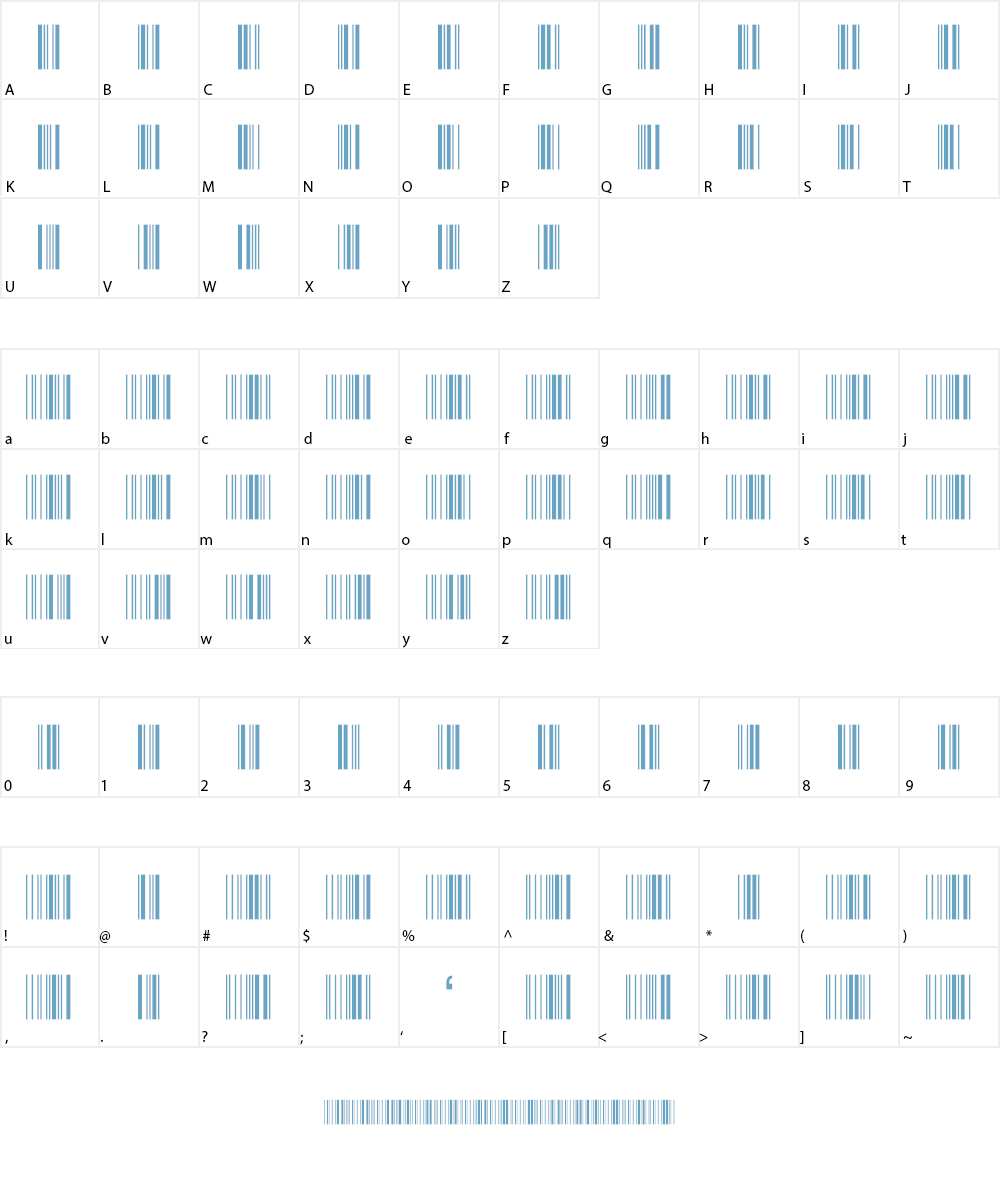
Can you believe there are people who would charge you for a barcode
font like this? It took very little time to make this so I thought
I'd donate it to the world. It is suitable for scanning even at
fairly small point sizes (with a laser printer). I have tested
printed copies of this font with a couple different scanners and it
worked perfectly.
This is 3 of 9 (sometimes called "code 39"), a widely used barcode
standard that includes capital letters, numbers, and several symbols.
This is not the barcode for UPC's (universal price codes) found on
products at the store. However, most kinds of barcode scanners will
recognize 3 of 9 just fine.
To create a valid 3 of 9 barcode you have to begin and end it with
a special character. Scanners look for this character to know
where to start and stop reading the barcode. It is represented in
this font with the '*' character. So, to create a barcode for the
text "ABC123" you have to type out "*ABC123*". Note that barcode
readers will not include the *'s in the text they return. They will
just give you the "ABC123".
Two versions of 3 of 9 are included. The font called "Free 3 of 9" is
the basic 3 of 9 standard. It includes letters and these symbols: $ %
- . and /. The font called "Free 3 of 9 Extended" covers the
extended 3 of 9 standard. It includes all the ASCII characters.